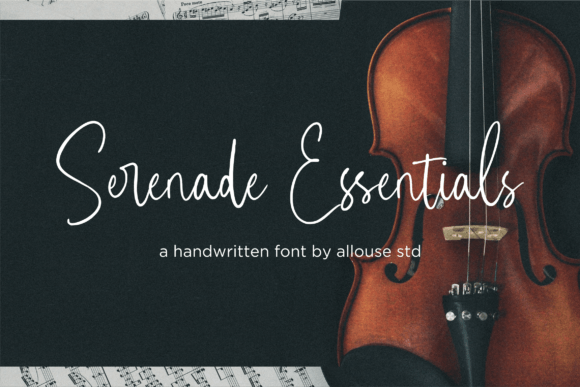
Dive into the world of elegance with Serenade Essentials, the ultimate script typeface that echoes the graceful allure of hand-lettered beauty. With its modern fluidity and timeless charm, Serenade Essentials elevates your designs to new heights, turning words into heartfelt expressions of your brand's story.
Whether you seek to capture the warmth of a handwritten note or bring a touch of sophistication to your product packaging, Serenade Essentials is your trusted companion. Its versatile nature makes it a perfect fit for branding projects, effortlessly adding a touch of elegance to your business's visual identity.
Unleash the power of Serenade Essentials to make a lasting impression on your audience. Whether it's an enchanting magazine layout, a captivating social media post, or the magical ambiance of a wedding invitation, Serenade Essentials gracefully dances across any platform, capturing hearts and inspiring connections.
With Serenade Essentials, your words will leap off the screen, captivating your audience with its effortless flow. From the allure of credit cards to the charm of product packaging, Serenade Essentials transforms ordinary text into an extraordinary visual feast that resonates with your customers.
Created by the talented artists of allouse.studio, Serenade Essentials embodies the essence of creativity and innovation. Its unique blend of modernism and classic allure ensures that your designs will stand out from the crowd, leaving an indelible mark on the minds of your customers.
Make Serenade Essentials your weapon of choice when you seek the pinnacle of typographic excellence. Experience the joy of crafting designs that resonate with your audience, leaving them mesmerized by the beauty of your creations. Let Serenade Essentials be your beacon of inspiration, guiding you to new heights of visual storytelling.